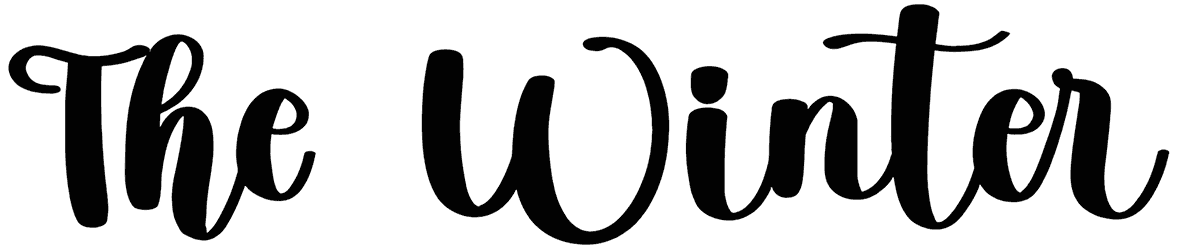
The Winter Font
There is no need to search further to dive into the beautiful world of handwritten font and bring your imagination to reality, cause The Winter is here. It will be sure the project captures all the attention, meanwhile helps to take your design to the top.
The cozy, decorative style promises a friendly and pleasant touch. This invitation font is ideal for designing wedding invitations, personalized gifts, website headers, photo overlays, and digital planners.